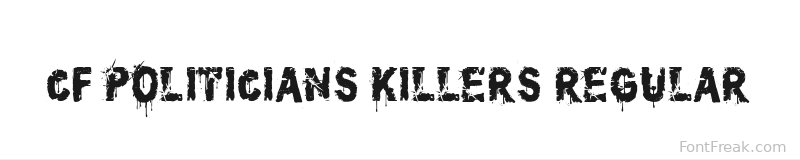
CF Politicians Killers Regular
CF Politicians Killers Regular is a striking display font designed by Cloutierfontes, released under a freeware license in 2012. This unique typeface falls into the category of decorative fonts, characterized by its bold, rugged appearance. The letters exhibit an uneven stroke weight and a gritty texture, giving them a rebellious and edgy vibe that captures attention. The contrast between thick and thin strokes adds a sense of dynamism, while the spacing is deliberately tight, enhancing its visual impact.
This font is perfect for a variety of creative applications. It shines in contexts such as movie posters, where its dramatic flair can evoke strong emotions and draw viewers in. Additionally, CF Politicians Killers Regular works well for music album covers, especially in genres that embrace a gritty aesthetic, such as punk or rock. Small business owners can utilize this font for promotional materials, making their branding stand out with a unique, memorable style. Furthermore, it can be effectively used in social media graphics, allowing content creators to convey bold messages with flair.
The target audience for this font includes graphic designers looking to make a statement in their projects, as well as small business owners who want to differentiate their branding. Content creators and marketers will also find this font appealing, as it can effectively capture attention in various digital formats.
What sets CF Politicians Killers Regular apart is its ability to communicate a strong, rebellious spirit while remaining versatile enough for different design needs. Its distinctive look not only makes it an eye-catching choice but also ensures that any project using this font leaves a lasting impression. For those interested, the CF Politicians Killers Regular font free download is readily available, making it accessible for all creative endeavors.